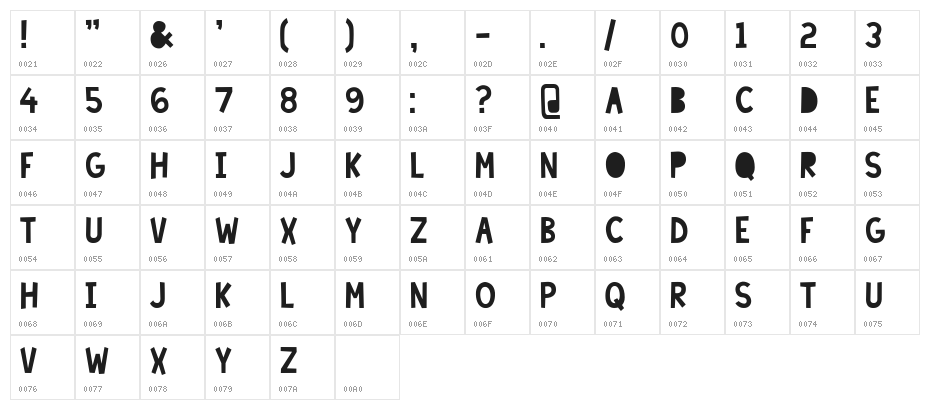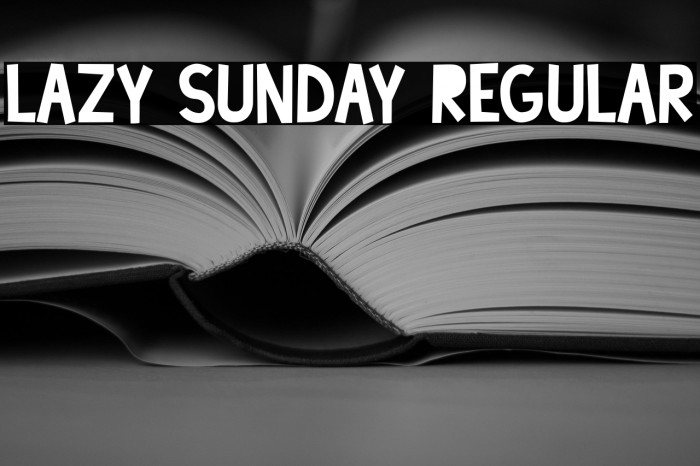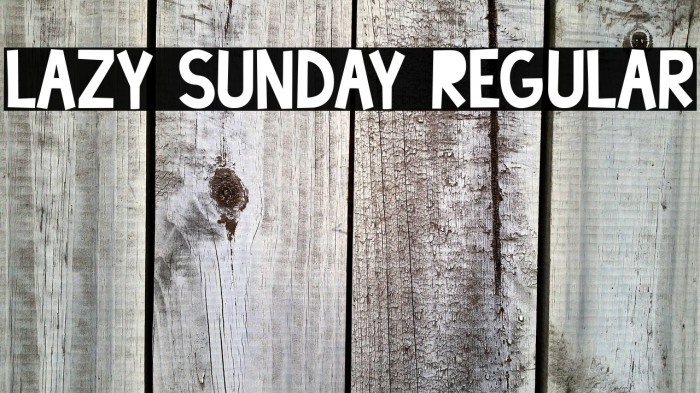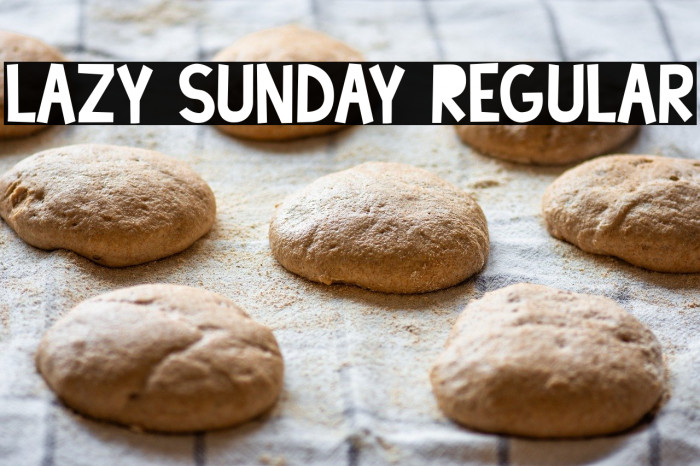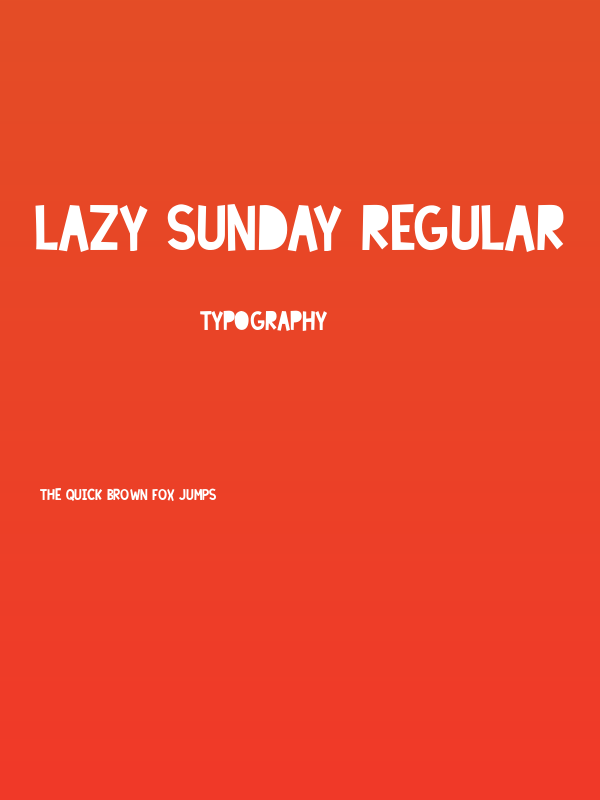
Lazy Sunday Regular Font
Lazy Sunday Regular Description
A playful and casual sans-serif font with irregular shapes and a hand-drawn feel.
| Overall Style | Playful, Casual |
| Use Case | Headlines, Informal text, Branding |
| Proposed Projects | Children's books, casual posters, playful branding. |